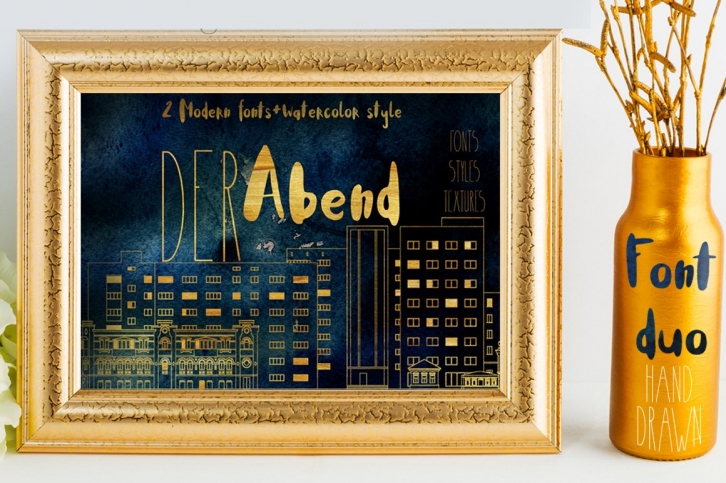
Hello! it's my new fonts Kit! Happy and crazy, level and strict!Contrast set for you!
Der Abend comes with:
• Der Abend calligraphy : A playful painted script with lot's of character! Includes ligatures to give your designs a handlettering feel.(OTF,WOFF)
• Der Abend : A level all CAPS protract font (OTF,WOFF)
are two contrasting font, which complement each other!